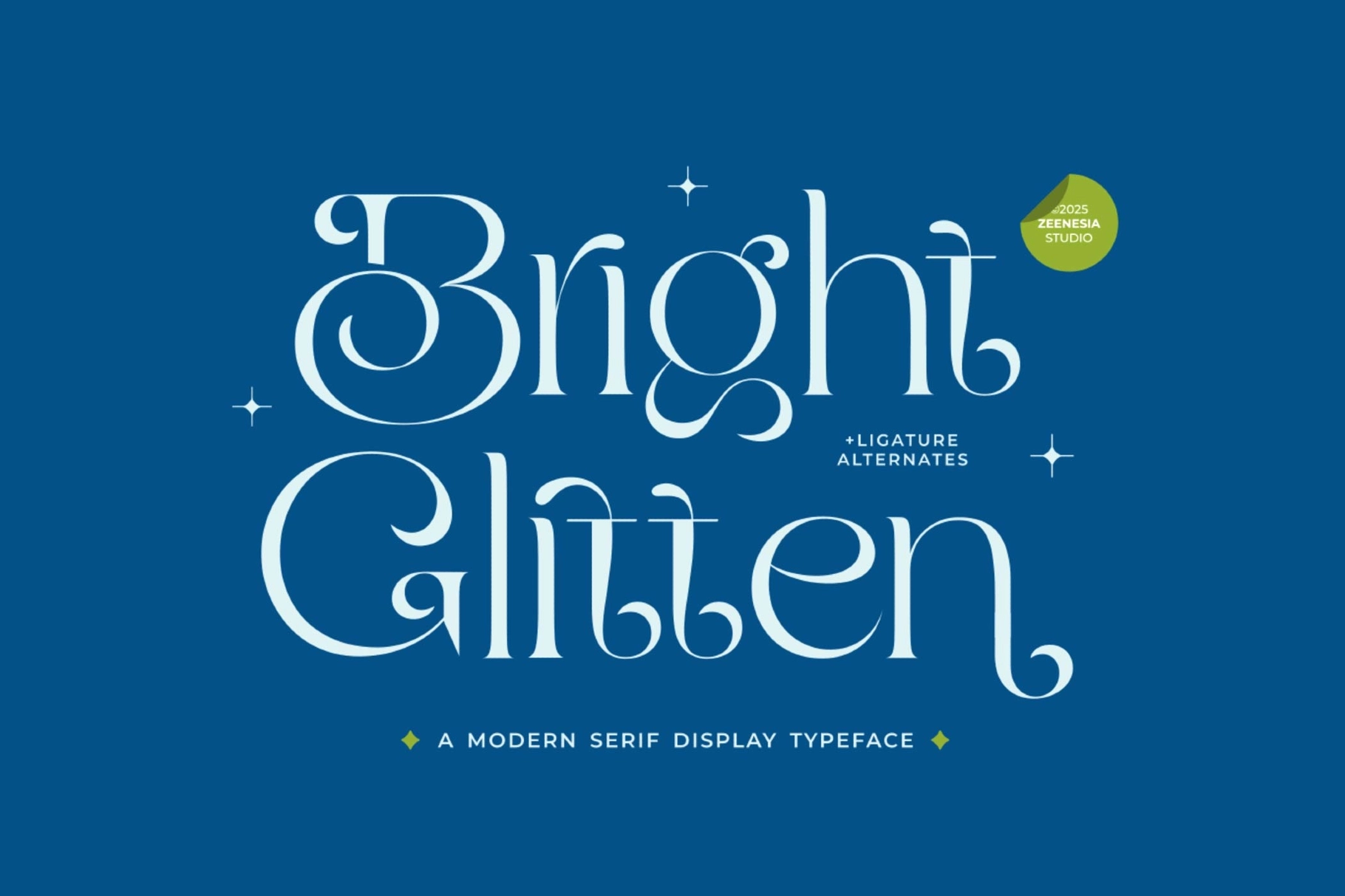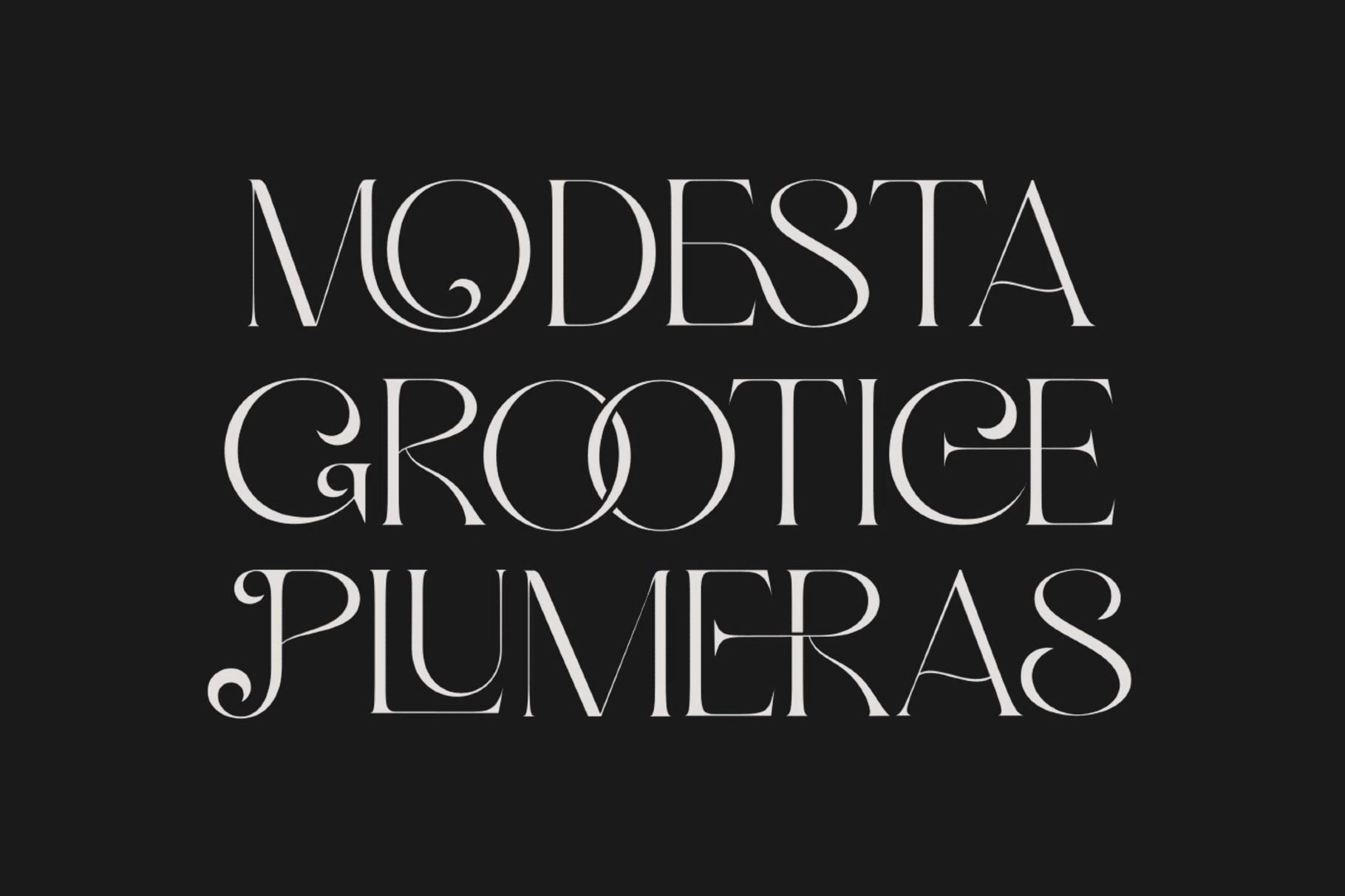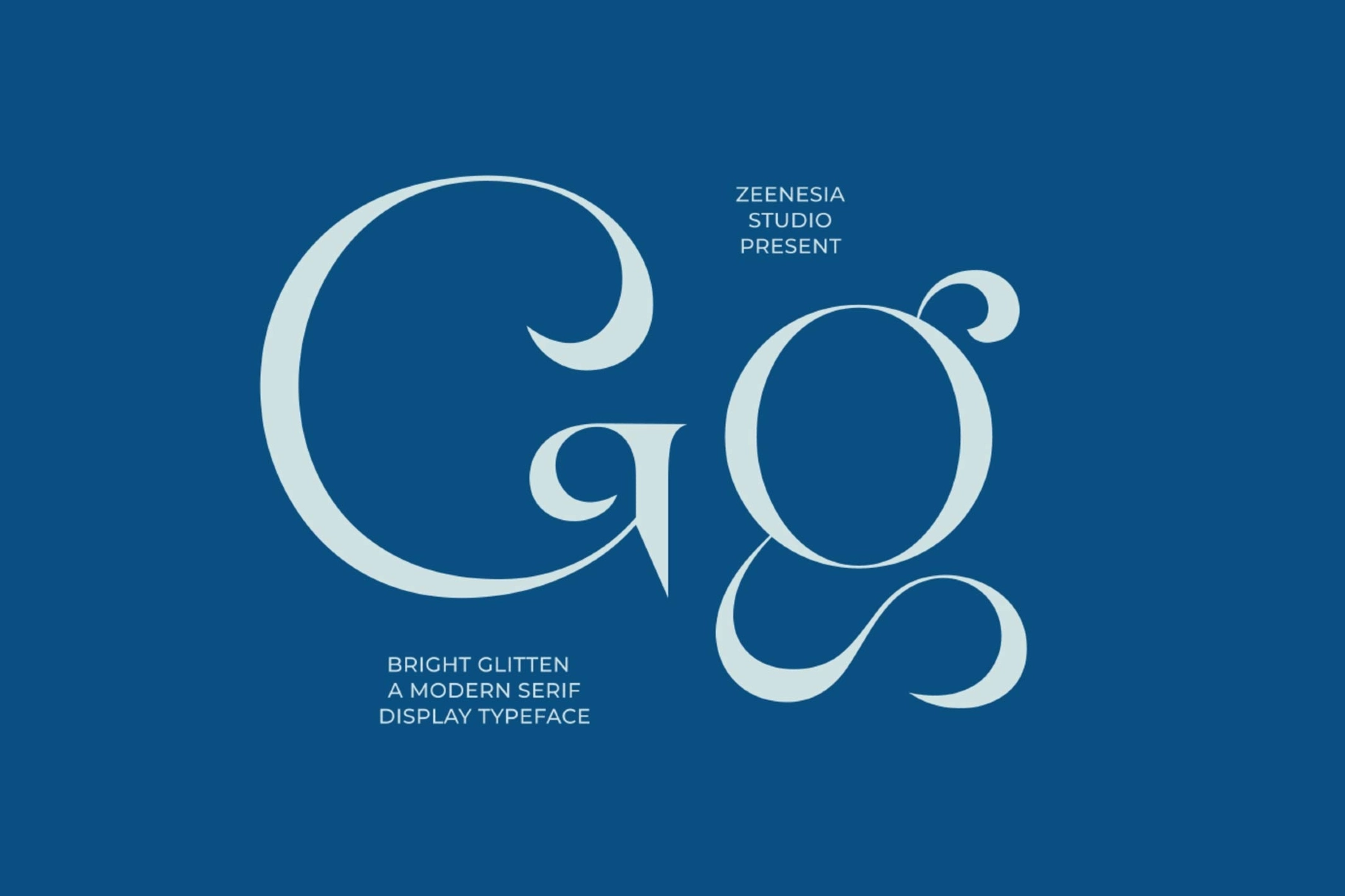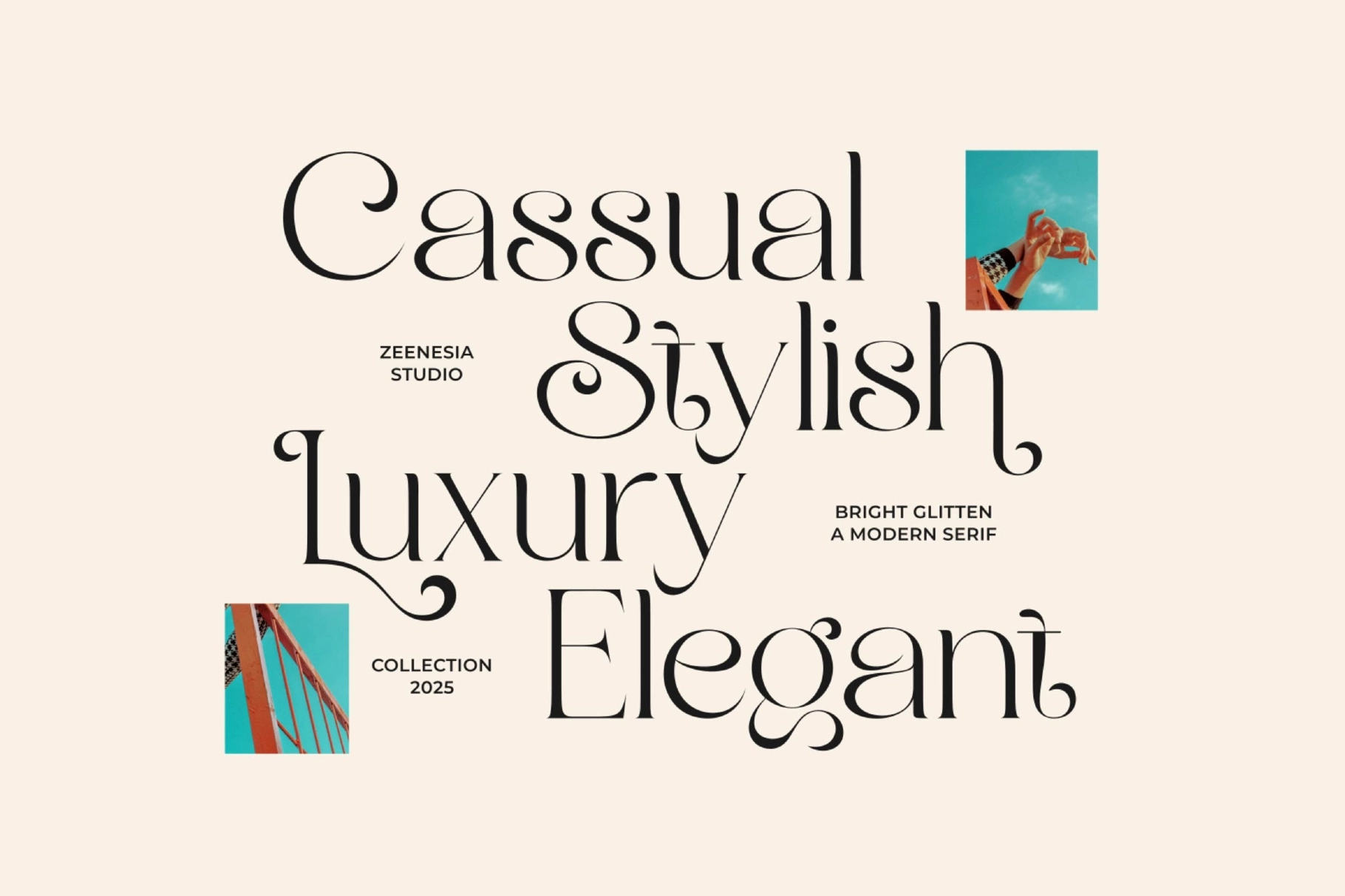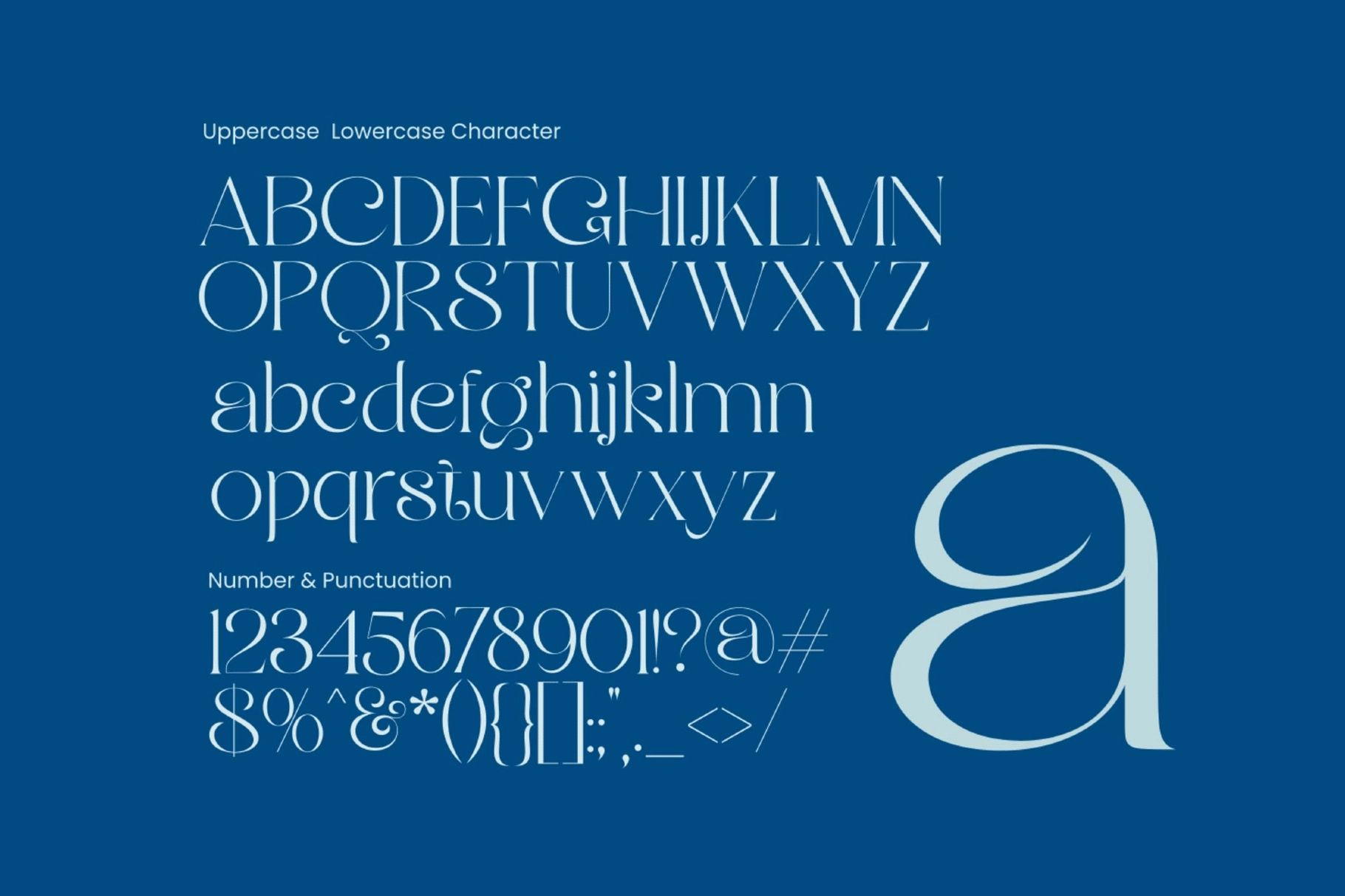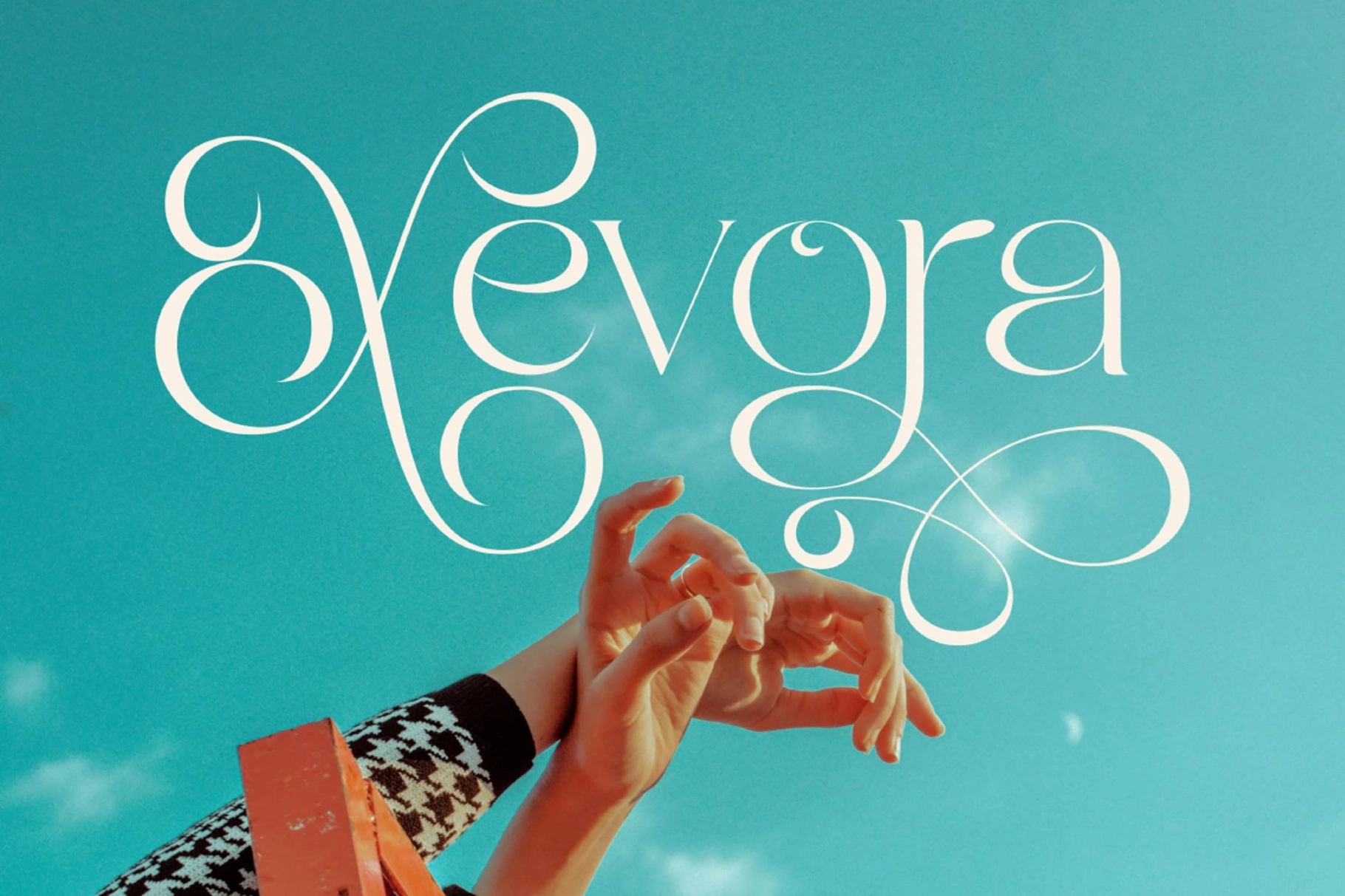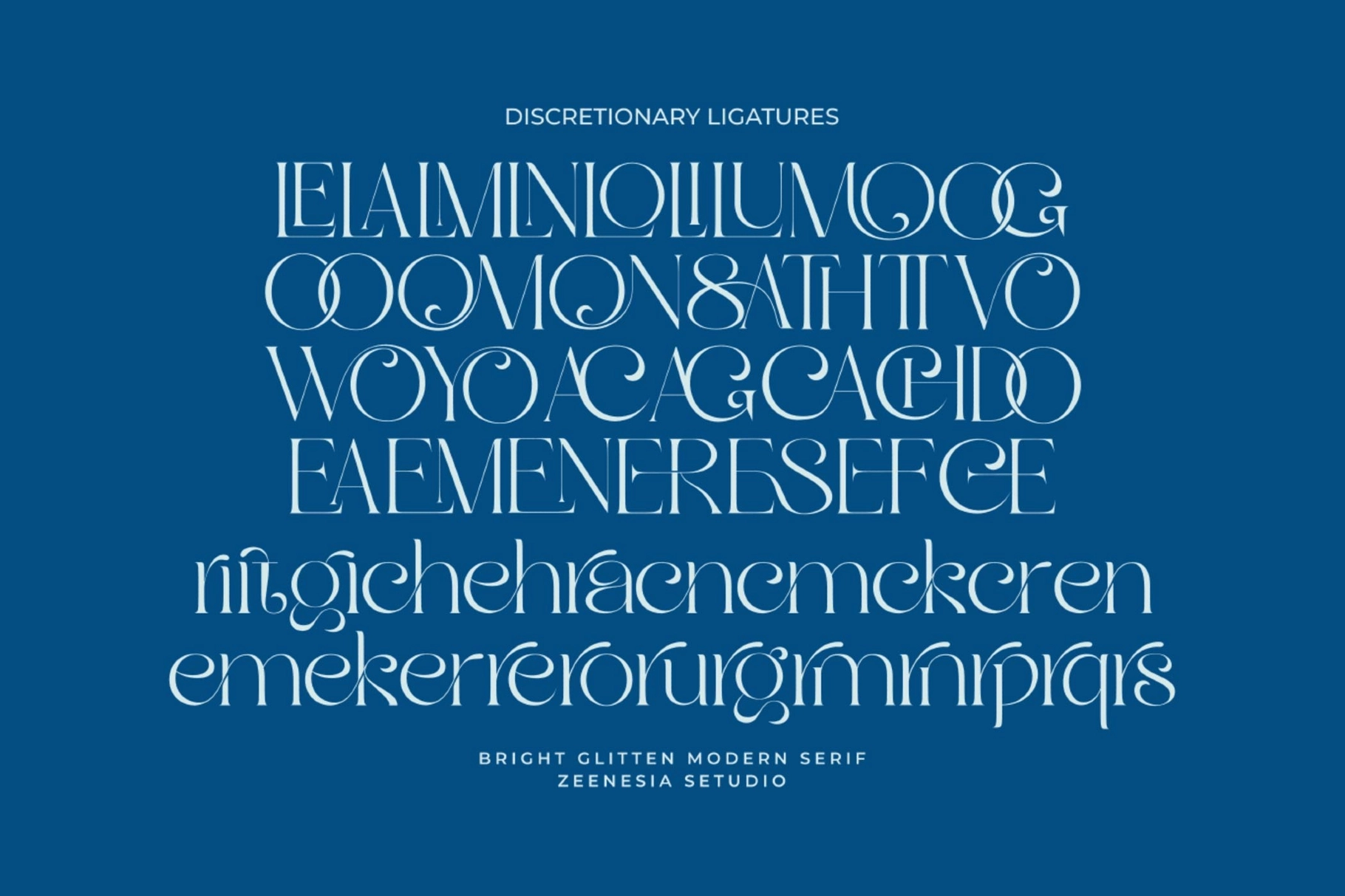
Bright Glitten - Elegant Modern Serif Display Font
Bright Glitten stretches its serifs into curling, ribbon-like swashes on the capitals, with a high-contrast modern serif skeleton underneath holding the whole thing together. Loops uncurl off letters like B, G, and t rather than stopping at a clean terminal, giving each headline a glamorous, hand-finished edge instead of the flat precision most modern serifs go for.
Discretionary ligatures reshape select letter pairs, and three stylistic alternate sets swap in different curl and loop treatments for the capitals, so a logotype or headline can carry its own distinct character. Use it for high-end branding, editorial layouts, wedding invitations, packaging, magazine headlines, and luxury product labels.
• Uppercase & lowercase;
• Numerals, punctuation & symbols;
• Discretionary ligatures & 3 stylistic alternate sets;
• Kerning support;